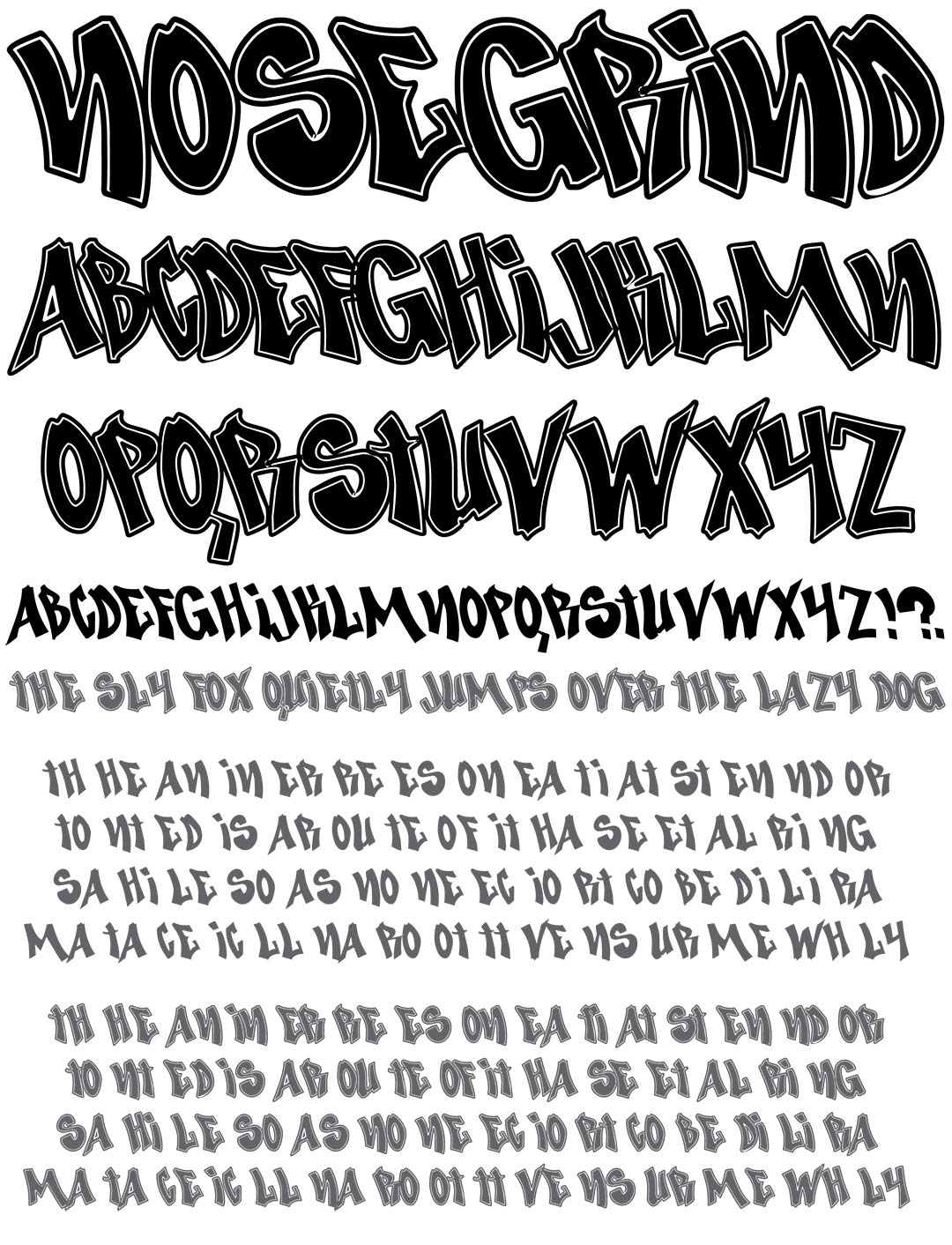
NoseGrind
NoseGrind Graffiti Alphabet
NoseGrind Graffiti Font Family
Created in Austin Texas, Nosegrind is a skate-culture inspired style created to reflect some of the local graffiti styles. The font includes fill letters on the lowercase keys & outline & fill together on the uppercase keys.